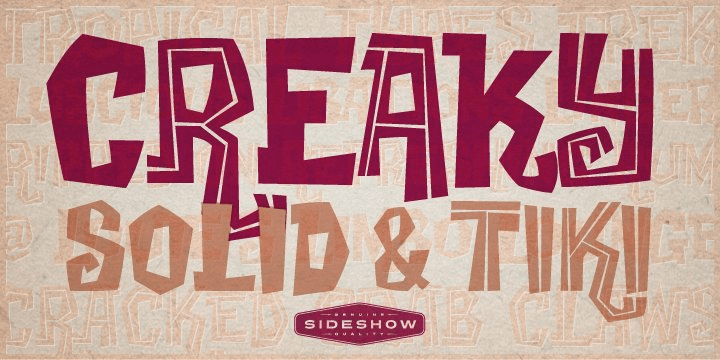
Creaky
Buy NowCreaky is a playful distressed display family with a loose, offbeat personality. Its rough edges and uneven letterforms give it a hand-drawn, slightly spooky feel that reads as fun rather than formal, making it a strong choice when you want type with character.
This family includes 3 styles—Creaky Tiki, Creaky Regular, and Creaky Frank—offering a few different takes on the same wacky voice. It suits posters, party graphics, themed packaging, signage, apparel, and other decorative display work where a clean, polished look would feel too restrained.
Designed by Sideshow, Creaky fits especially well in projects that call for humor, novelty, or a weathered visual twist. If you are looking for lettering that feels lively, quirky, and a little creased around the edges, this family brings that mood quickly.